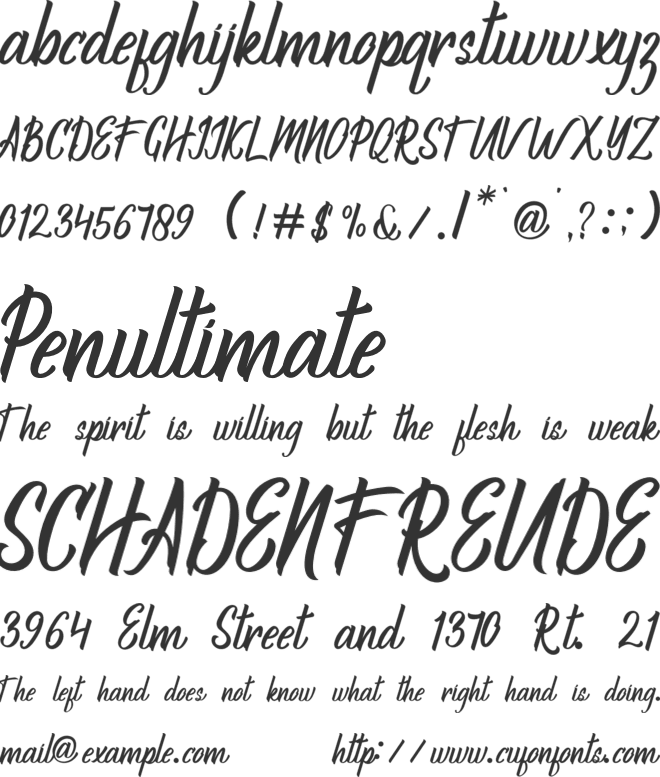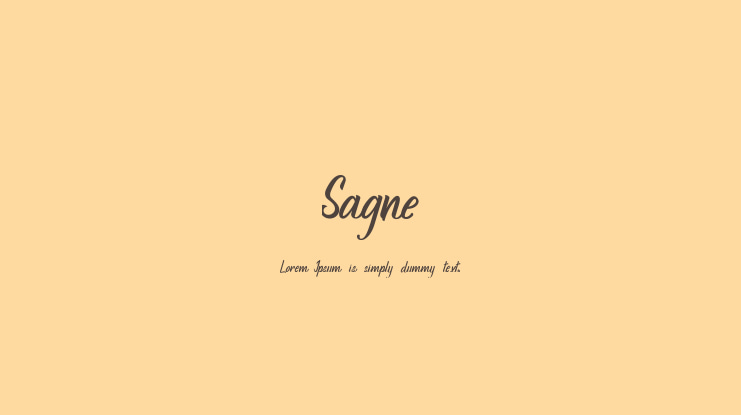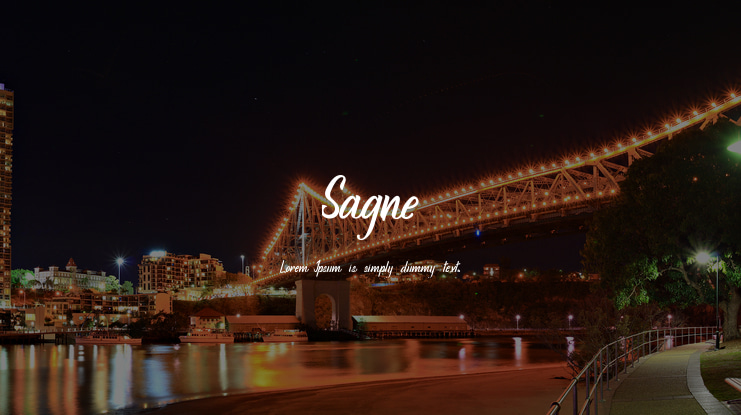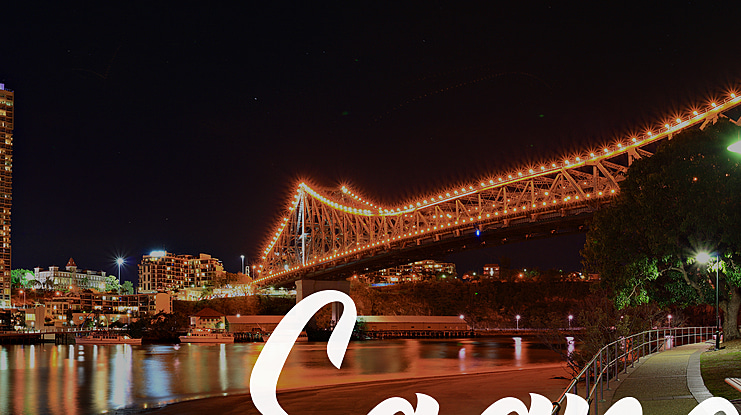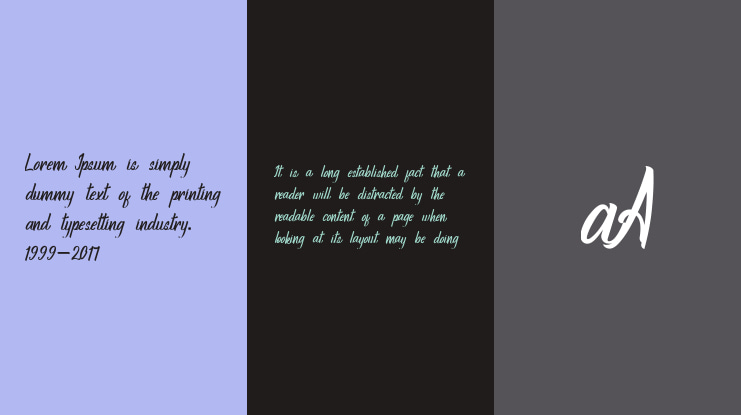
Sagne Font
introducing a new script font called Sange. take us in the 90s. Sagne font can be used on poster designs, logos, flayers, t-shirts, titles, etc. Sagne fonts are equipped with opentype futures such as alternates, stylistic sets, swash & ligatures.
Sagne font preview
Sagne Regular font